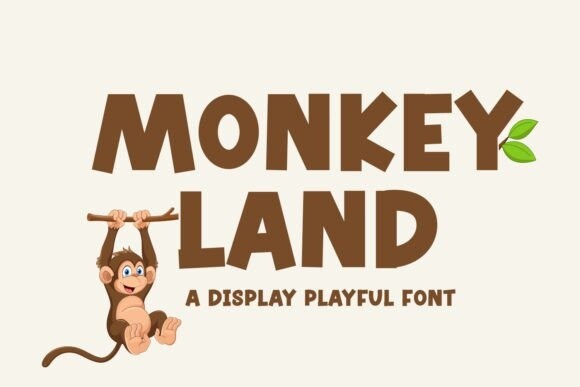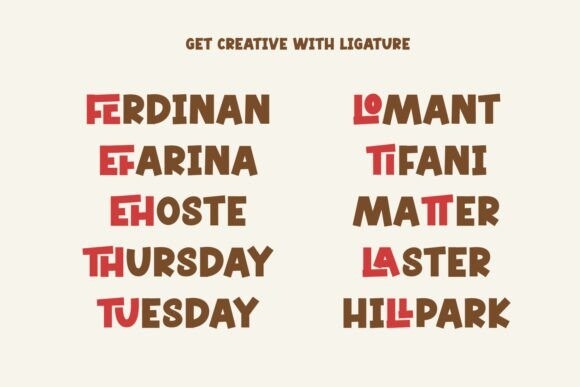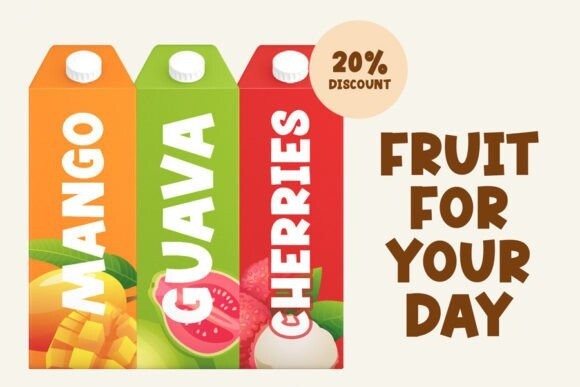
Monkey Land Font
Monkey Land Font looks bold, modern, and joyful. This font is suitable for logos, packaging designs, posters, business cards, covers, broadcasts, quotes, books, etc. Let’s go, to make your business go to the next level with monkey land.
This font is PUA encoded which means you can access all of the amazing glyphs and ligatures with ease!